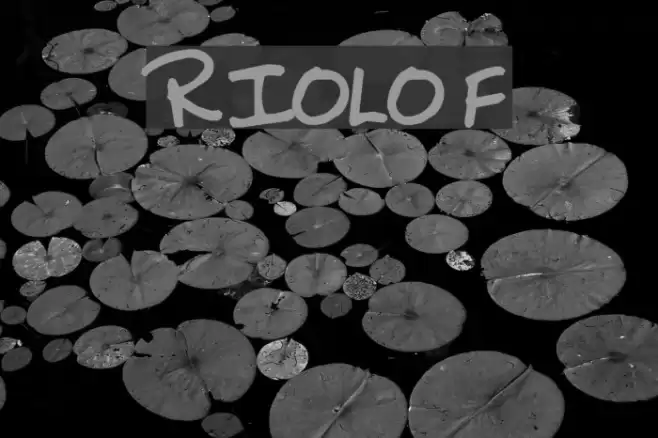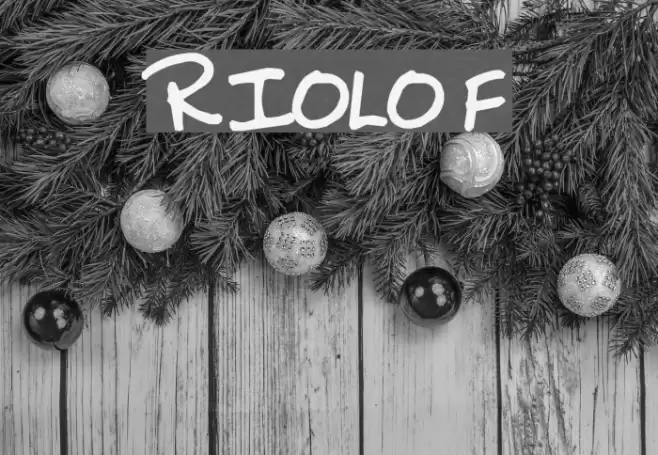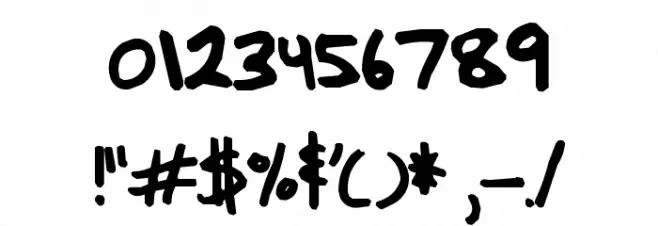
RIOLO Font
RIOLO Description
This font exudes a playful and casual handwritten style, characterized by its bold and slightly irregular strokes. The letters are rounded and have a natural flow, reminiscent of a marker or brush pen. The uppercase and lowercase letters maintain a consistent style, with the uppercase being slightly larger and more pronounced. Numbers and special characters follow the same informal aesthetic, making the font versatile for various creative projects. Its informal and friendly appearance makes it ideal for designs that aim to convey warmth and approachability.
A playful, bold handwritten font with a casual and friendly style from Uncategorized fonts.
- Proposed Projects: Ideal for greeting cards, children's books, casual branding, and social media graphics.
- Overall Style: Casual
- Use Case: Headlines, Logos, Informal Text